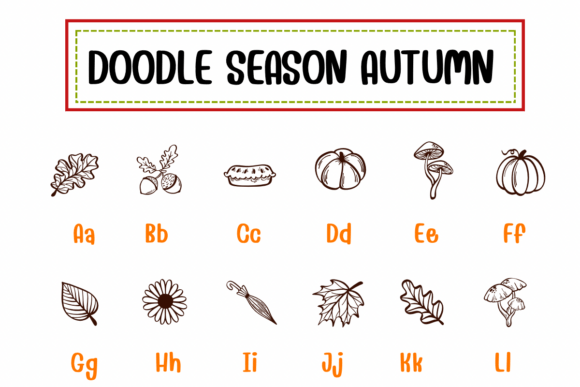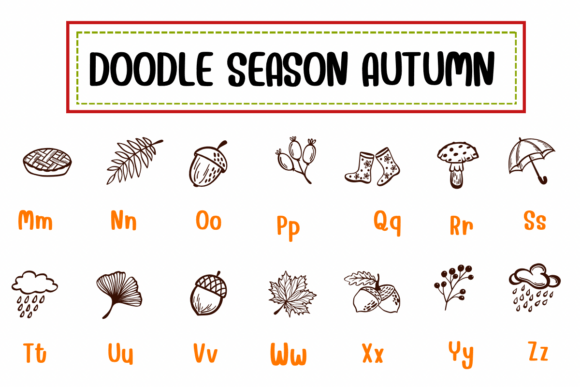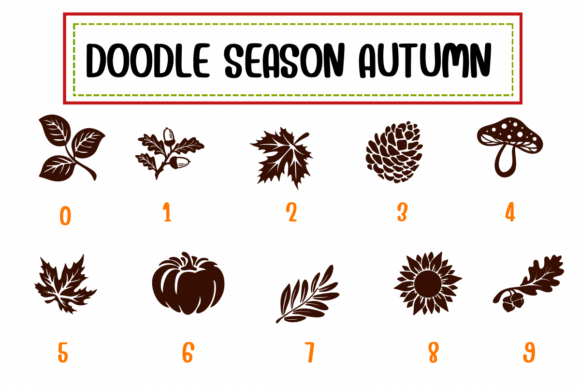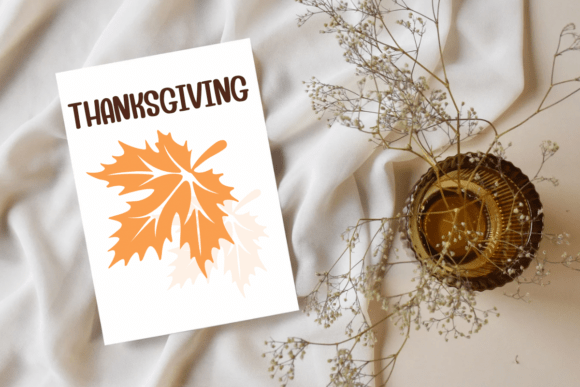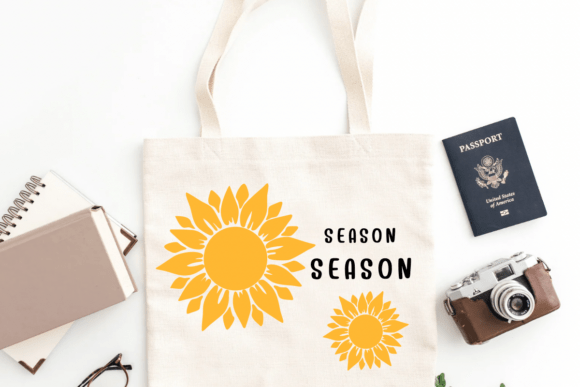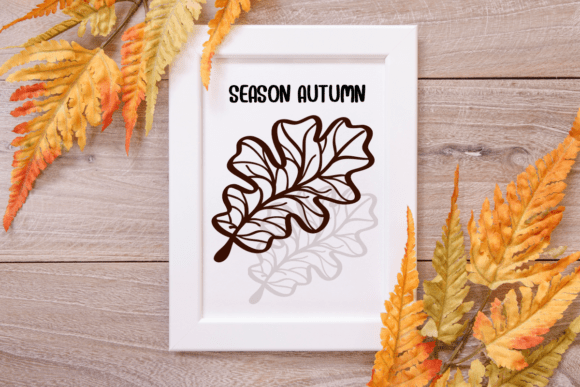
Introduction to Doodle Season Autumn Font
As a designer, there’s nothing quite like the thrill of creating something new and unique. Whether it’s a custom wedding invitation or a logo for a new business, the process of bringing your ideas to life is a truly rewarding experience. And, let’s be honest, having the right design resources can make all the difference. That’s why we’re excited to introduce you to the Doodle Season Autumn Font, a stunning dingbats font that’s perfect for adding a touch of natural charm to your creative projects.
This beautiful font is a game-changer for designers, offering a range of high-quality, free downloads that can be used to create everything from DIY crafts to wedding decorations. With its transparent background and whimsical design elements, the Doodle Season Autumn Font is the perfect addition to any design toolbox.
Key Features of Doodle Season Autumn Font
- Unique Doodle Season Autumn design style, perfect for creative projects and design resources.
- Features a transparent background, allowing for easy customization and integration with other design elements.
- Designed to evoke a sense of autumnal warmth and coziness, ideal for seasonal-themed designs and projects.
- Perfect for use in digital design, print materials, and other creative projects where a unique and whimsical font is required.
Honest Review: Doodle Season Autumn Font
I recently had the chance to work with the Doodle Season Autumn Font on a creative project, and I must say it’s a delightful addition to any design resource. This font is perfect for those who love the charm of autumn, with its intricate doodles and whimsical feel.
- ✨ High-quality design that’s perfect for autumn-themed projects
- ✨ Beautiful, intricate doodles that add a touch of whimsy
- ✨ Transparent background makes it easy to combine with other design elements
- ⚠️ Limited character set, which may be a problem for longer texts
- ⚠️ Some letters may not be suitable for use in headlines or titles
Overall, I’m impressed with the Doodle Season Autumn Font. It’s a great choice for designers who want to add a touch of autumn magic to their creative projects. While it may have some limitations, its unique charm and high-quality design make it a valuable addition to any design resource.
Tips for Getting the Most Out of Doodle Season Autumn Font
For the best results, use Doodle Season Autumn Font in combination with other design elements, such as watercolor textures or autumn-themed graphics. Experiment with different font sizes and colors to create a unique and eye-catching design.
Doodle Season Autumn Font is perfect for autumn-themed designs, such as invitations, greeting cards, or social media graphics. It’s also great for adding a touch of whimsy to your creative project, whether it’s a blog post, a brochure, or a website.